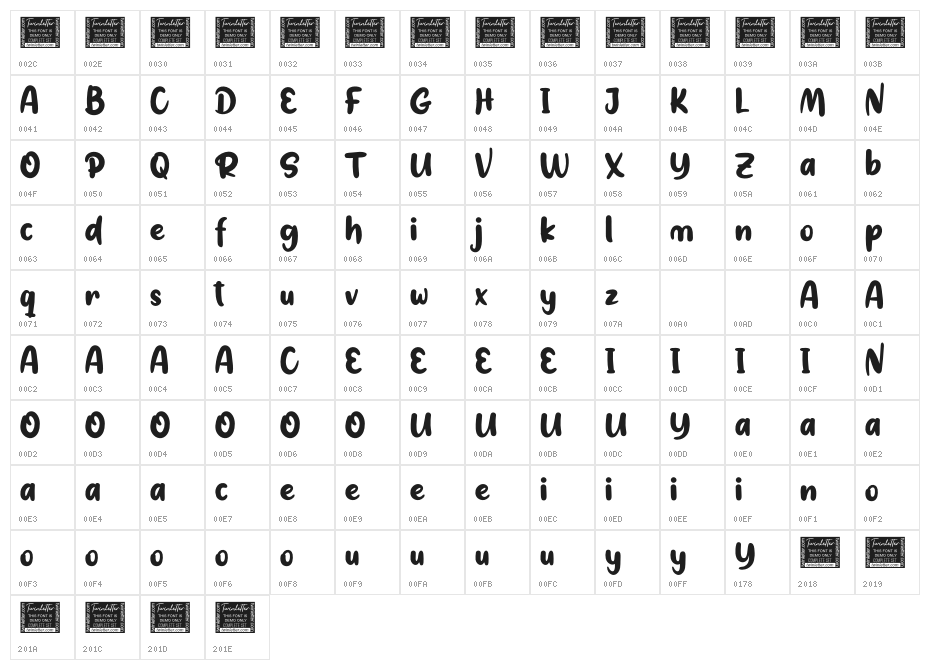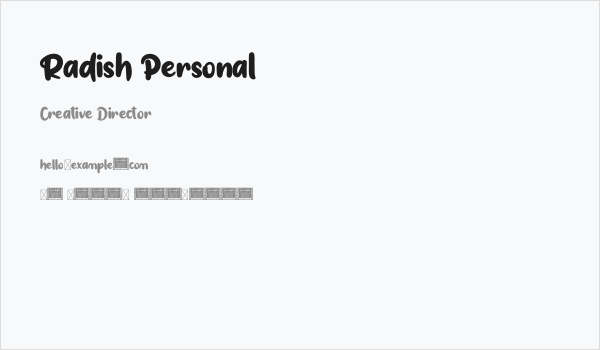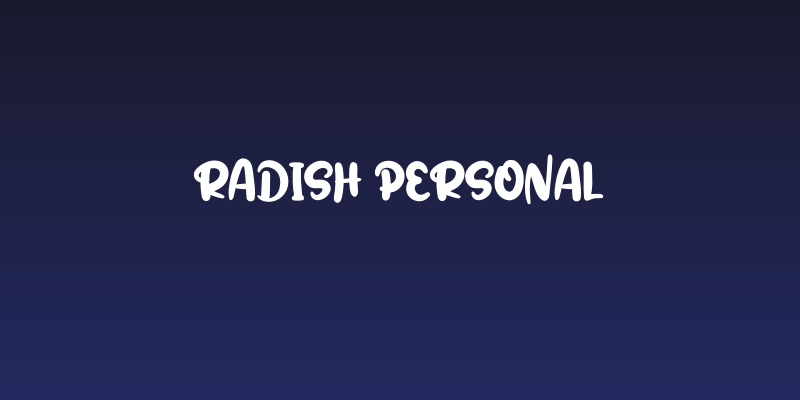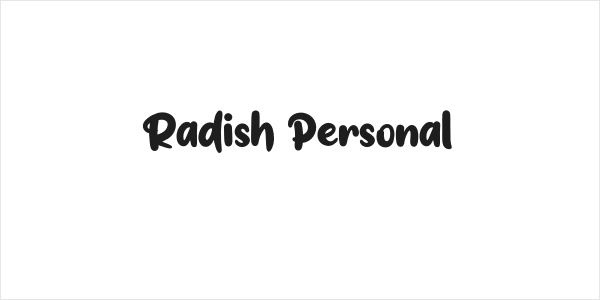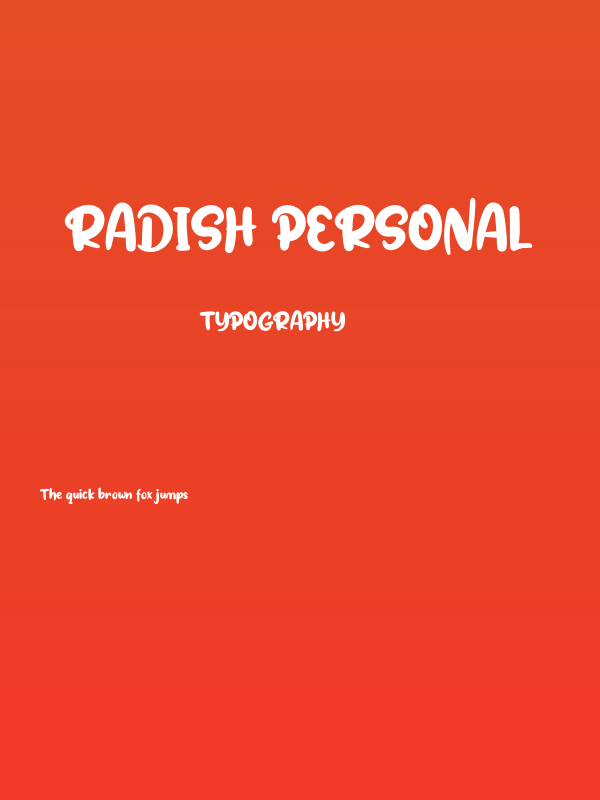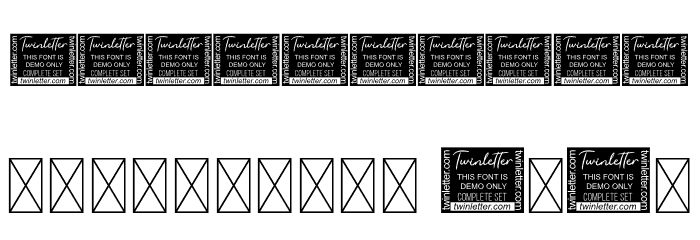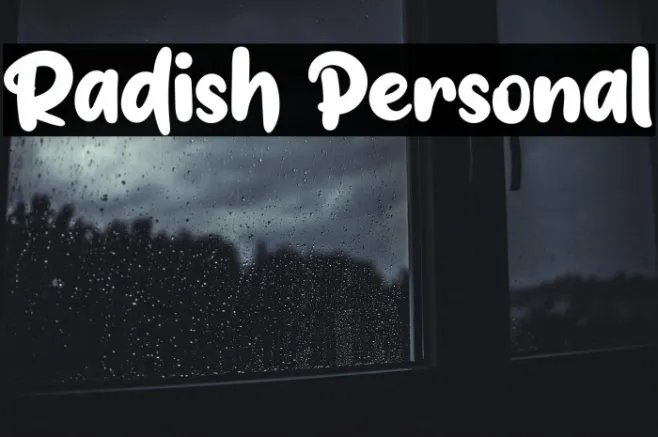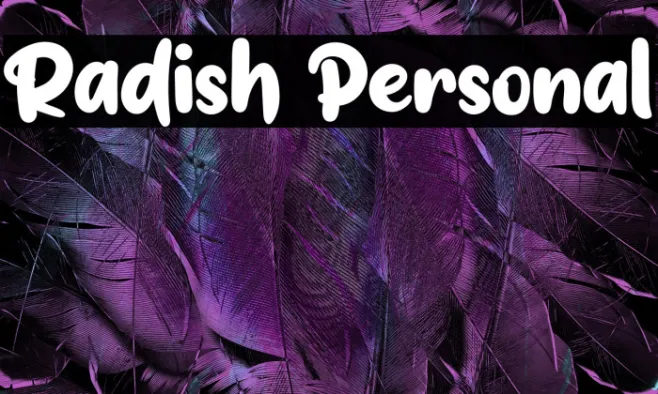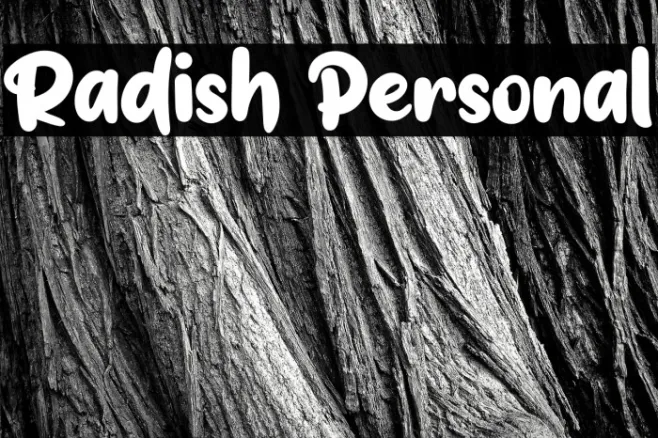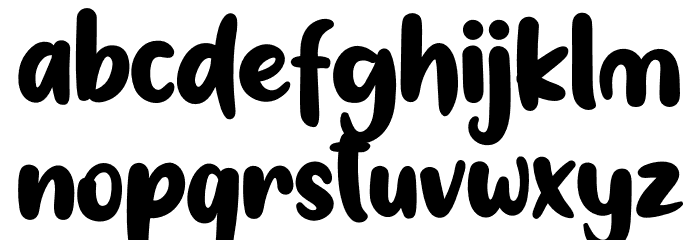
Radish Personal Font
Radish Personal Description
This font features a playful and bold style with rounded edges and a handwritten feel. The uppercase letters are slightly larger and more pronounced, while the lowercase letters maintain a consistent flow and balance. The strokes are thick, providing a strong visual impact, yet the rounded forms add a friendly and approachable character. This font is ideal for projects that require a personal touch, such as invitations, greeting cards, or branding for creative businesses. Its unique style stands out, making it suitable for headlines and short text where personality and flair are desired.
| Overall Style | Playful, Friendly |
| Use Case | Headlines, Branding, Invitations |
| Proposed Projects | Ideal for invitations, greeting cards, creative branding, and headlines. |